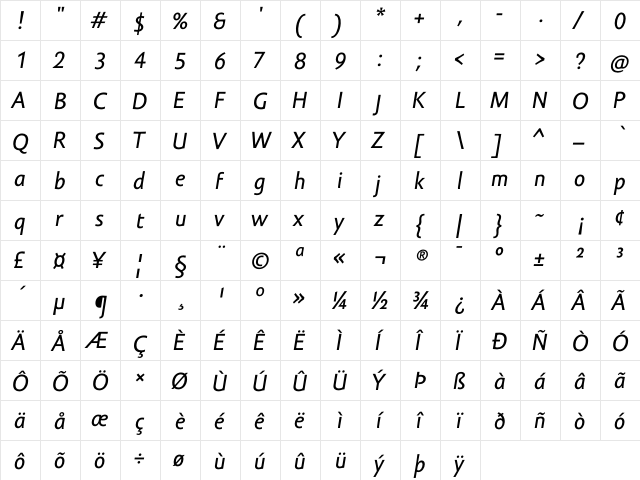
Amor Sans Text Pro Italic
Design Context for Amor Sans Text Pro Typeface
Amor Sans Text Pro takes a measured approach to typography — its balanced proportions and neutral character make it a reliable workhorse for both digital and print work. The slanted form adds forward momentum and visual energy.
Pro Tip: Use Amor Sans Text Pro for emphasis, pull quotes, and subheadings where its slanted energy can add rhythm to the layout.